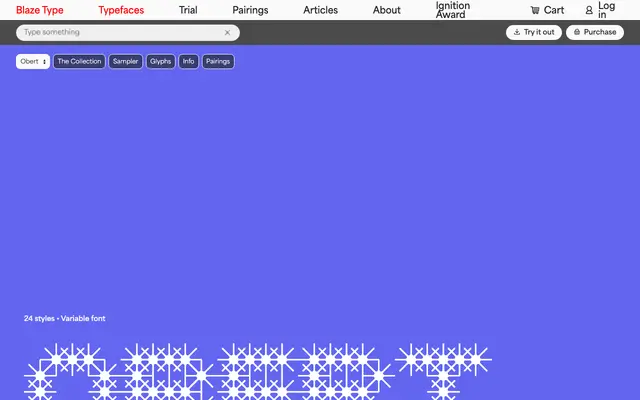
Obert
Blaze Type · Maksym Kobuzan · 2023
Obert specimen from Blaze Type
A two-axis variable modular typeface by Maksym Kobuzan in which capsule-shaped units rotate up to 180 degrees and letters tilt 45 degrees, collapsing readable text into abstract decoration.
Built from identical capsule modules, Obert lets each unit rotate 180 degrees while the overall letterform tilts in 45-degree increments, producing results that range from legible display type to near-abstract pattern. The family divides into three branches: Obert Variable for the core rotation and tilt system, Obert Bright Variable which uses the same axes to simulate varying luminosity, and Obert Exp which offers five static cuts inspired by physical properties such as chip, thorn and screen. Its name derives from the Ukrainian word «Оберт», meaning rotation. Coverage extends to Extended Latin, Greek and Cyrillic.
Obert is a modular variable typeface built from capsule-shaped units that rotate and tilt, giving it a strongly experimental and display character; it cannot be classified within conventional typographic categories.